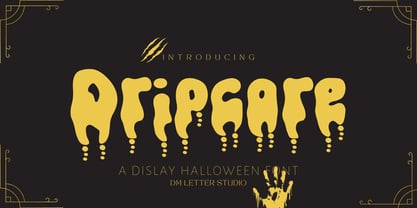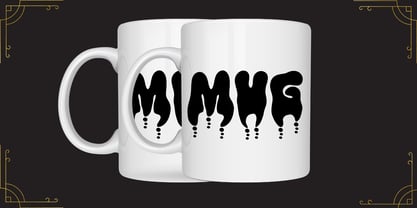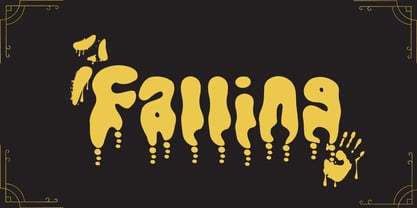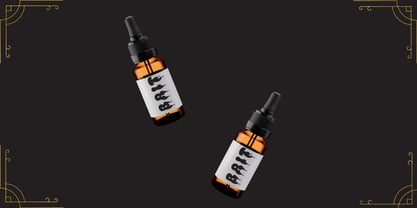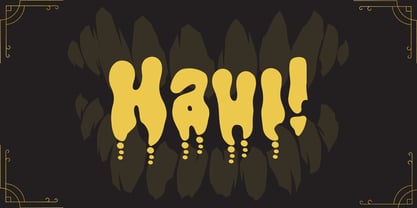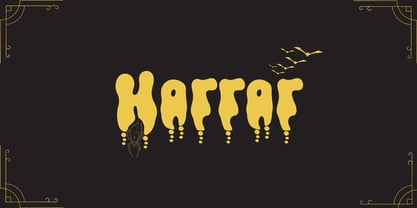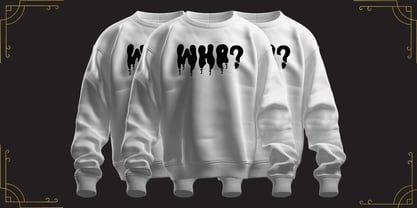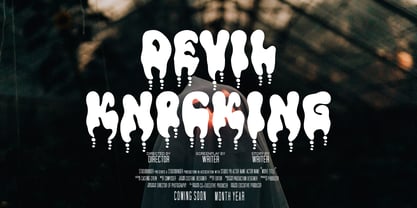
Dripcore
The Dripcore Font Family was designed by Dimas Prasetyo and published by DM Studio. Dripcore contains 1 styles. More about this family
Meet Dripcore Font brings bold horror energy with clean readability. Strokes are thick and confident, while artful drips add tension without killing clarity. Because the shapes stay sturdy, your titles pop on shirts, posters, covers, and thumbnails. Use it for Halloween drops, haunted attractions, game graphics, metal gigs, and spooky party kits. Moreover, Dripcore loves outlines, glows, and gritty textures, so even quick mockups look finished. Where Dripcore Font shines Set short phrases like “Night Parade,” “Blood Moon,” or a team name with numbers. Then add soft shadows, inner lines, or sticker borders to push depth. Since spacing is tuned for headlines, layouts come together in minutes. As a result, you can launch complete bundles for events, socials, and print-on-demand with less tweaking. Plus, the letterforms remain clear on mobile, which helps listings stand out fast. Fast setup, fierce results Install the files and start designing right away in Canva, Photoshop, and Illustrator. Also, cutting apps keep the curves smooth for vinyl and decals. Consequently, mugs, bags, and hoodie prints stay crisp at any size. Next, test palettes like blood red with bone, toxic green with black, or violet with neon lime. Finally, reuse Dripcore across thumbnails, posters, and stickers to lock a consistent visual voice. Design tips for horror display Keep copy short and let Dripcore lead. Pair headlines with a clean geometric sans for captions. Meanwhile, try grain, halftone, and light grunge for texture. Because the shapes are sturdy, outer glows and rim lights boost contrast on dark fabric. However, avoid long sentences on tiny labels. Names, dates, and punchy words hit hardest. What you get inside Uppercase, lowercase, numbers, punctuation Clean outlines for sharp print and smooth cutting